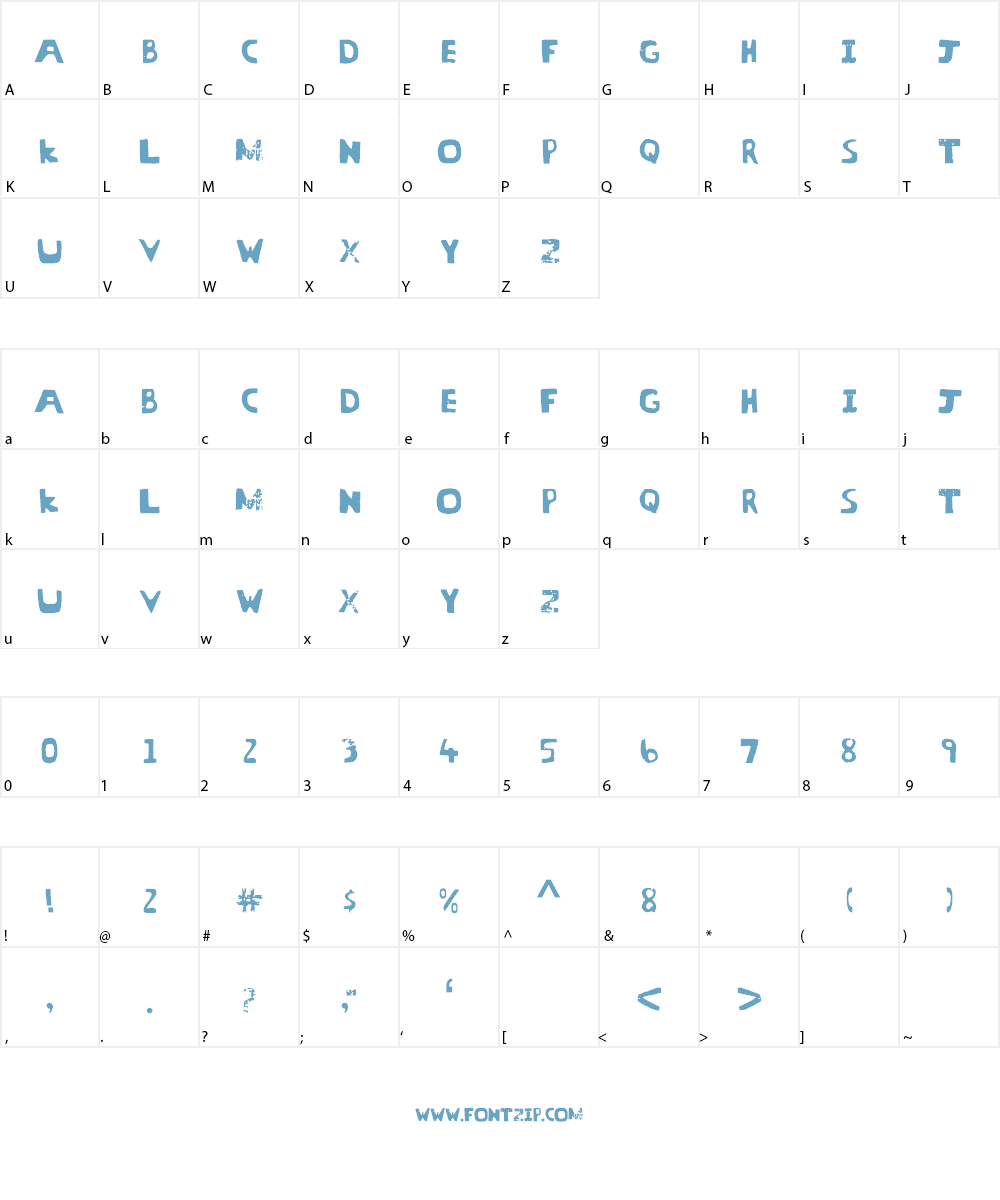
I wanted this font to look like someone had cut out letters from a newspaper (which I did) not sure if it works as it looks more like a wood block type. Anyway it may take your fancy and get you that £1,000,000 you're trying to scam.